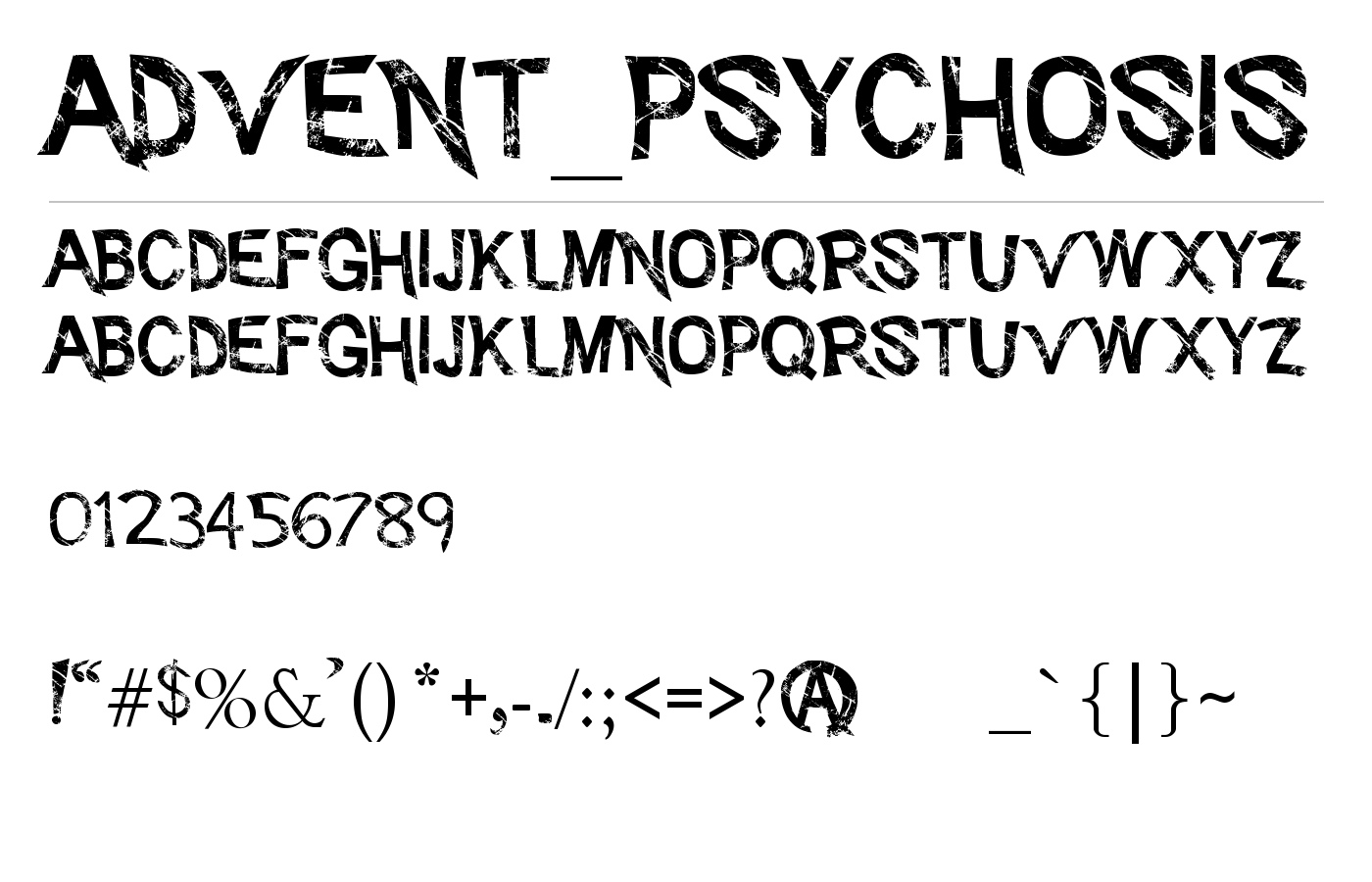
Advent Psychosis is a bold, distressed sans serif font with uneven, jagged edges and a rough, grunge texture that gives it a rebellious, chaotic personality. Its uppercase-only style with a high x-height and tight spacing creates a striking, impactful look perfect for edgy designs, posters, and branding that want to convey intensity and raw energy. This font works well in creative projects that call for a strong, unconventional statement with a distressed, urban vibe.
Advent_Psychosis Font
About Advent_Psychosis Font